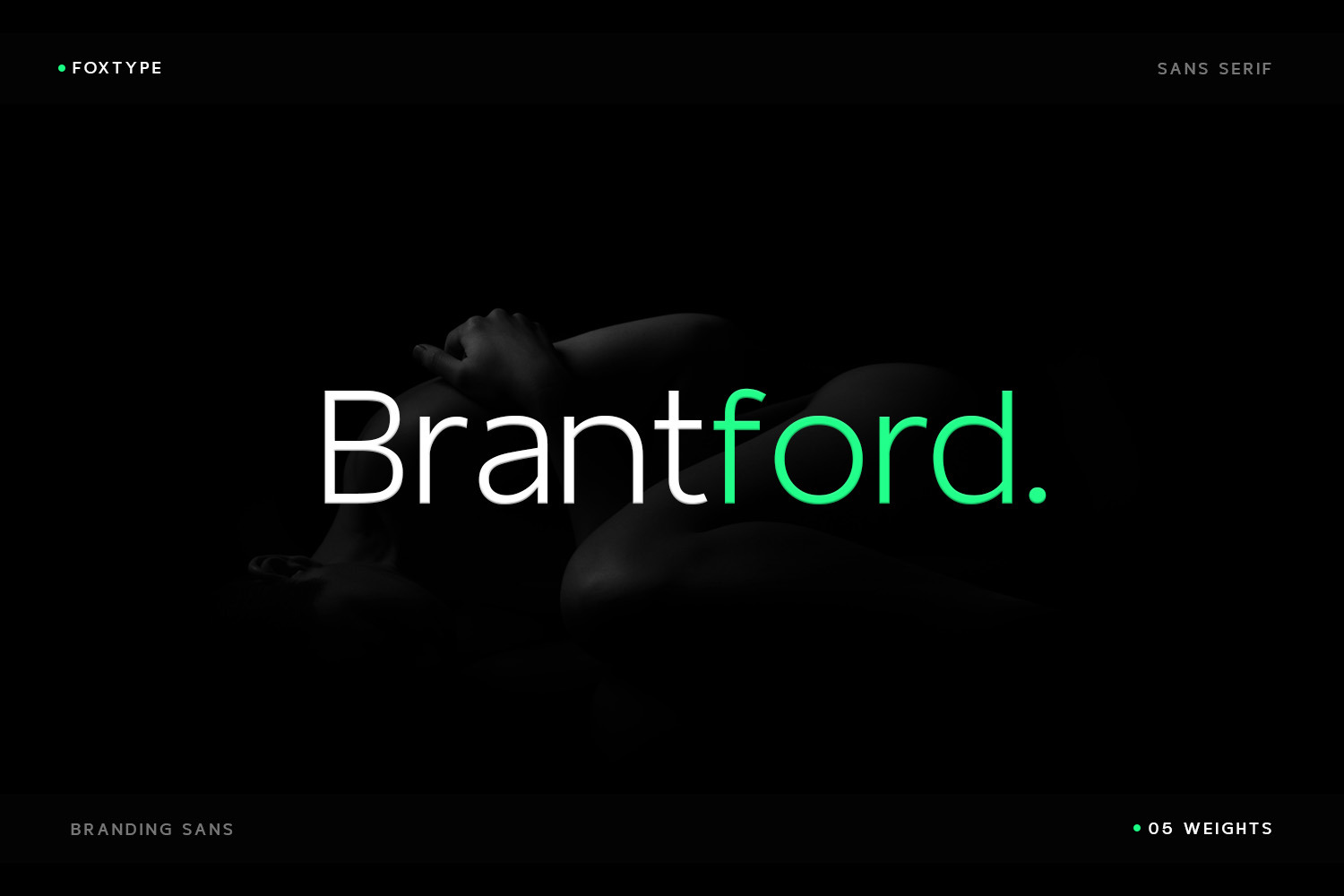
BrantFord Display Typeface
Introducing BrantFord new generation Typeface with 5 Weights. BrantFord Typeface created with the vision of to attract the audience to your brand . The finest details of this typeface are methodically and mathematically created. BrantFord is created with all the tasks of a corporate font and also for the usage in a variety of projects, including branding, logos, titles, headlines, servers, screens, display, digital ads, and everything else.
We are putting a lot of effort on this font as a long-term project. The Typeface includes Five Weights. Light, Regular, Medium, SemiBold and Bold
- Numerals, extended punctuation & Basic Symbols(200+ Glyphs).
- Expert kerning and quality crafting.
- Uppercase Letters & Lowercase Letters